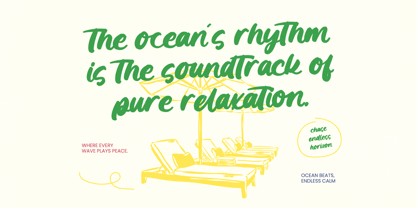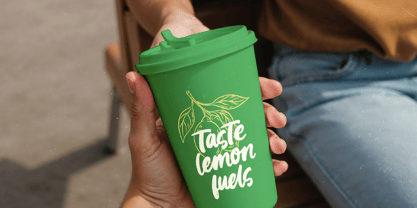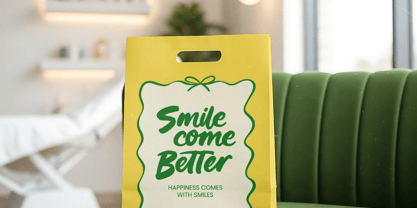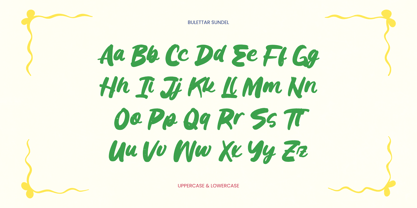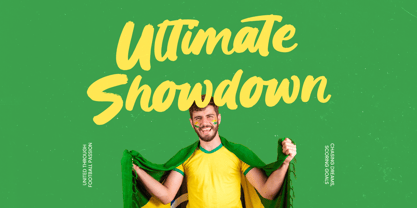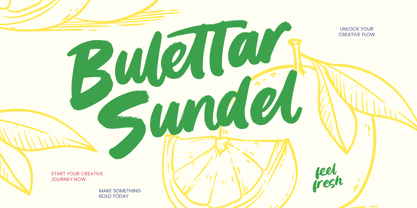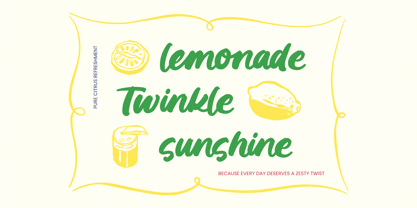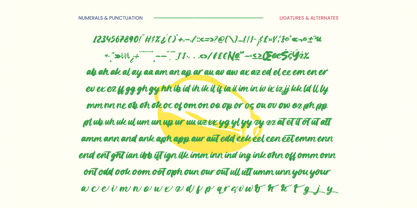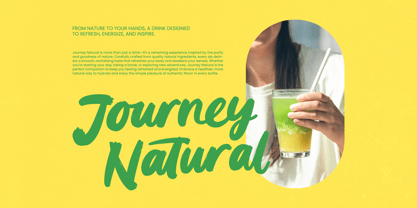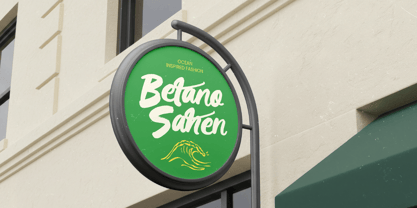
Bulettar Sundel
The Bulettar Sundel Font Family was designed by Heru Utama Putra and published by Letterena Studios. Bulettar Sundel contains 2 styles and family package options. More about this family
Bulettar Sundel - Bold Brush
Unleash the raw energy of your designs with Bulettar Sundel - Bold Brush, a powerful typographic masterpiece that blends authentic hand-drawn texture with a modern aesthetic. This bold brush script captures a sense of spontaneous creativity, offering organic strokes that provide an immediate visual impact for any creative endeavor. Designed by Letterena Studios, it features a robust set of 137 ligatures and 25 alternates, ensuring your compositions feel unique, handcrafted, and entirely professional.